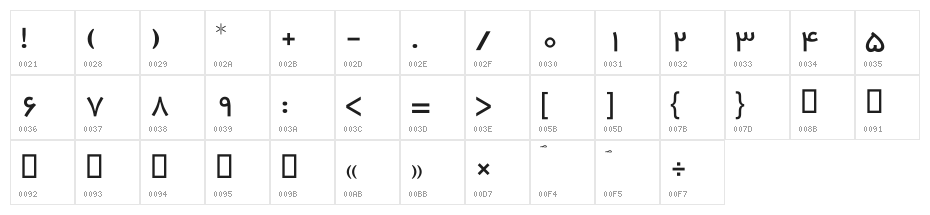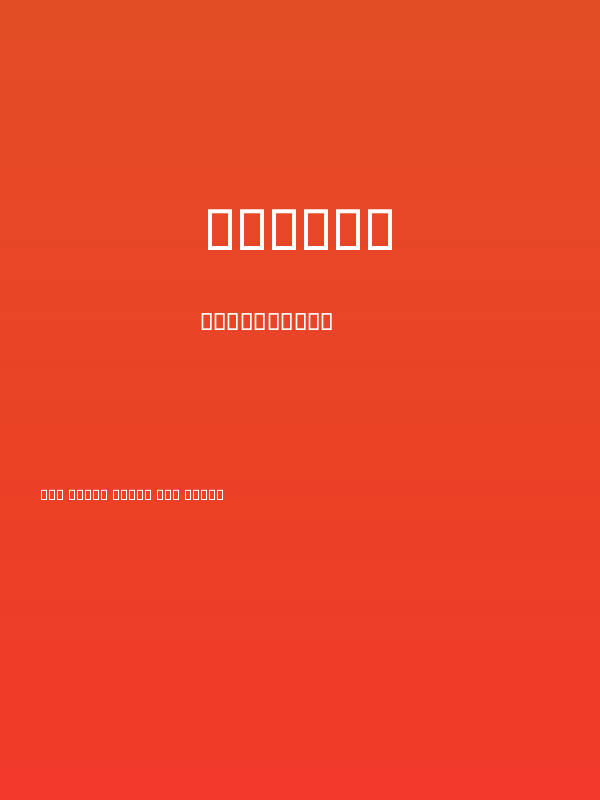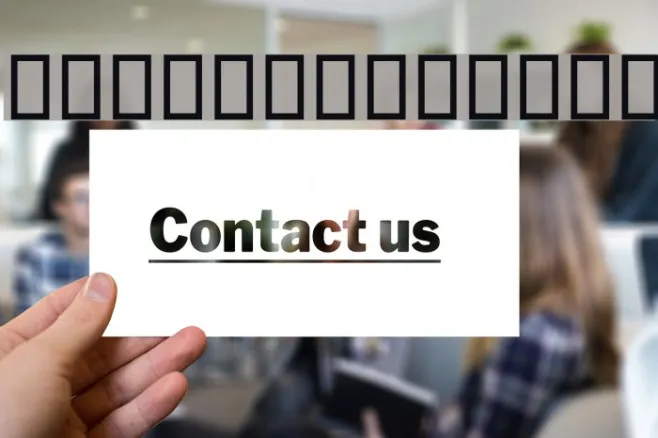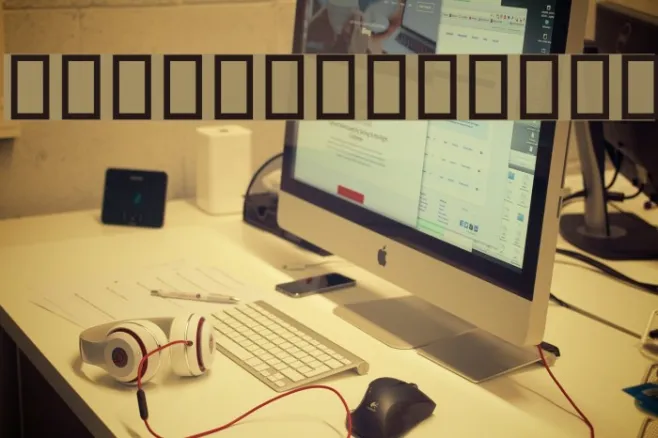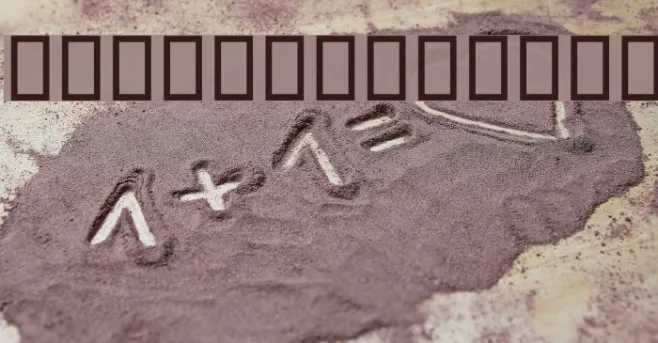
Hardon Font
Hardon Description
This font features a unique and playful design with a modern twist. The characters are bold and rounded, giving them a friendly and approachable appearance. The numbers have a distinct style, with curves and angles that add a touch of whimsy. The special characters are consistent with the overall design, maintaining the playful and modern aesthetic. This font is versatile and can be used in various creative projects.
گالری فانت فارسی پژوهش آريانا - only compatible with Farsi and Arabic
| Proposed Projects | Ideal for children's books, playful branding, creative posters, and modern web design. |